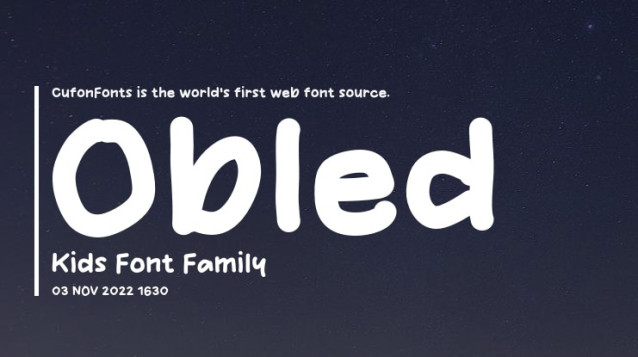
Obled Kids Font a sweet and friendly handwritten font. Cute and fun, this font is ideal for writing wedding invitations, cards, or any other design that might need a fun touch!
| Designer Name: | Origin Type |
| Classification: | Handwritten Fonts, Playful / Fun Fonts |